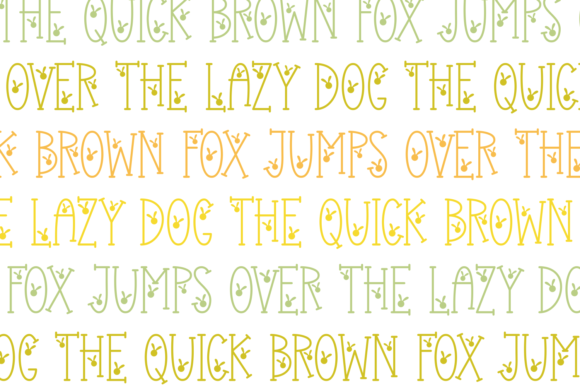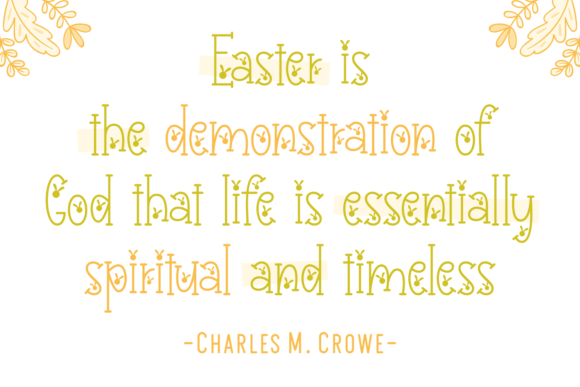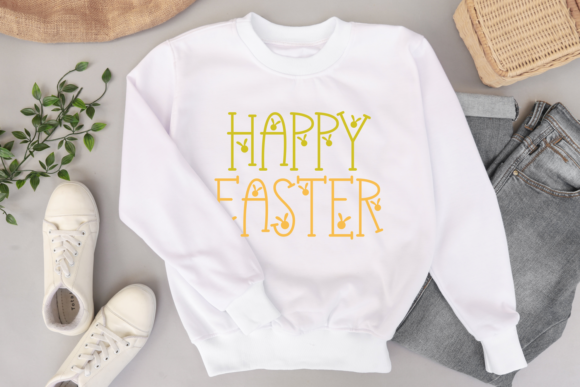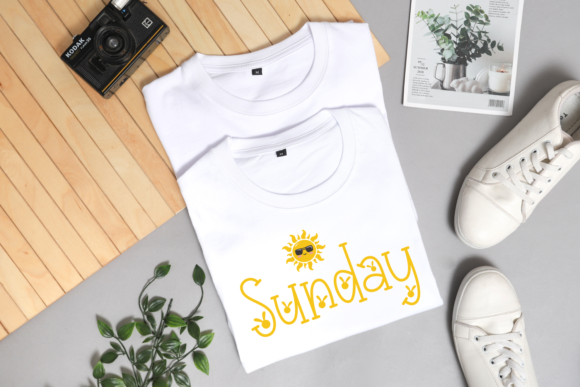
Hop into Design with Fun Easter Font: The Sweetest Handwritten Font for Your Easter Projects
Are you looking for a font that will add a touch of whimsy and playfulness to your Easter designs? Look no further than the Fun Easter font! This sweet and fun handwritten font is perfect for designers and crafters who want to create eye-catching and festive Easter-themed projects. In this article, we’ll dive into the features and benefits of the Fun Easter font, and explore how you can use it to take your Easter designs to the next level.
What is Fun Easter Font?
Fun Easter is a beautiful, handwritten font that is designed to capture the spirit of Easter. With its tin lettered and friendly style, this font is perfect for creating a wide range of Easter-themed designs, from greeting cards and invitations to social media graphics and blog posts. The font is highly legible and versatile, making it easy to use for both personal and commercial projects.
Key Features of Fun Easter Font
- Handwritten style: Fun Easter font has a sweet and playful handwritten style that is perfect for Easter designs.
- Tin lettered: The font features a tin lettered style that gives it a unique and festive look.
- Highly legible: The font is designed to be highly legible, making it easy to read and understand.
- Versatile: Fun Easter font can be used for a wide range of Easter-themed designs, from greeting cards to social media graphics.
Why Use Fun Easter Font?
So why should you use Fun Easter font for your Easter designs? Here are just a few reasons:
- Adds a touch of whimsy: Fun Easter font adds a touch of whimsy and playfulness to your Easter designs, making them stand out from the crowd.
- Easy to use: The font is highly legible and easy to use, making it perfect for designers and crafters of all skill levels.
- Festive and seasonal: The font is specifically designed for Easter, making it the perfect choice for creating festive and seasonal designs.
How to Use Fun Easter Font
Using Fun Easter font is easy! Here are a few tips for incorporating it into your Easter designs:
- Pair it with other Easter-themed graphics: Pair Fun Easter font with other Easter-themed graphics, such as Easter eggs, bunnies, and spring flowers, to create a cohesive and festive design.
- Use it for titles and headings: Use Fun Easter font for titles and headings to add a touch of whimsy and playfulness to your designs.
- Experiment with different colors: Experiment with different colors and textures to add depth and interest to your designs.
Ideas for Using Fun Easter Font
Here are a few ideas for using Fun Easter font in your designs:
- Easter greeting cards: Use Fun Easter font to create festive and personalized Easter greeting cards for friends and family.
- Easter invitations: Use the font to create eye-catching and festive Easter invitations for parties and events.
- Social media graphics: Use Fun Easter font to create social media graphics, such as Easter-themed Facebook posts and Instagram stories.
- Blog posts: Use the font to add a touch of whimsy and playfulness to your Easter-themed blog posts.
| Font Name | Fun Easter Font |
| Author | Kelik – 7NTypes |
In conclusion, Fun Easter font is a sweet and fun handwritten font that is perfect for designers and crafters who want to create eye-catching and festive Easter-themed projects. With its tin lettered and friendly style, this font is highly legible and versatile, making it easy to use for both personal and commercial projects. Whether you’re creating Easter greeting cards, invitations, social media graphics, or blog posts, Fun Easter font is the perfect choice for adding a touch of whimsy and playfulness to your designs.